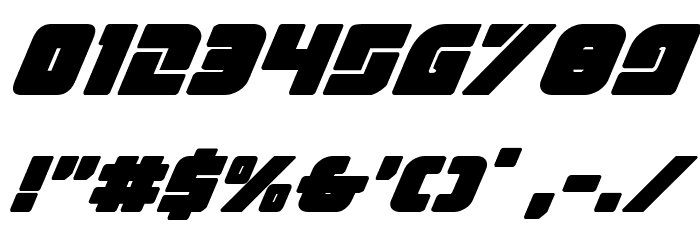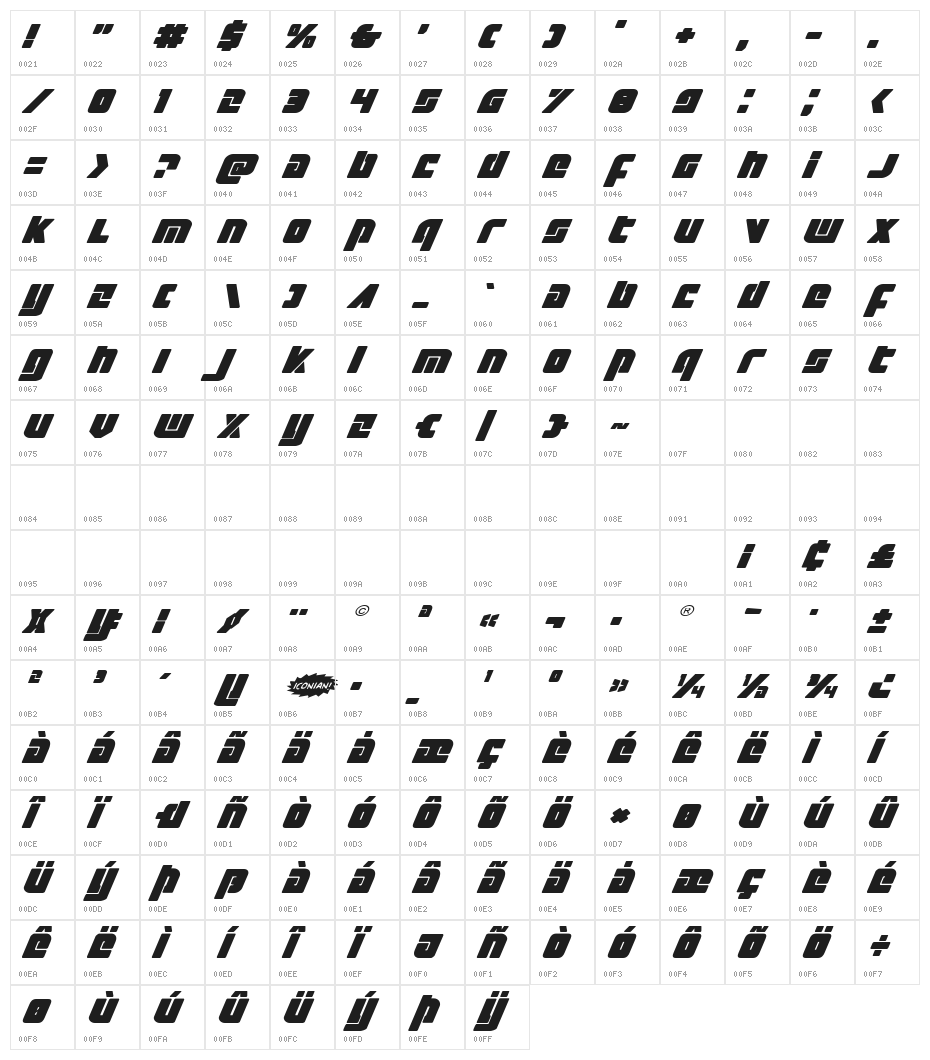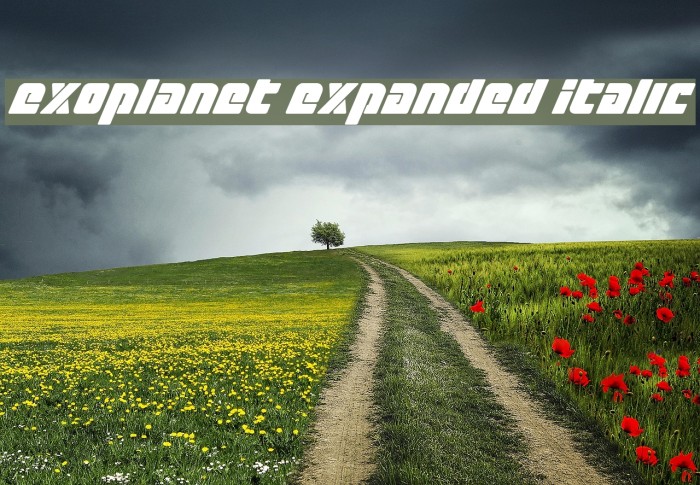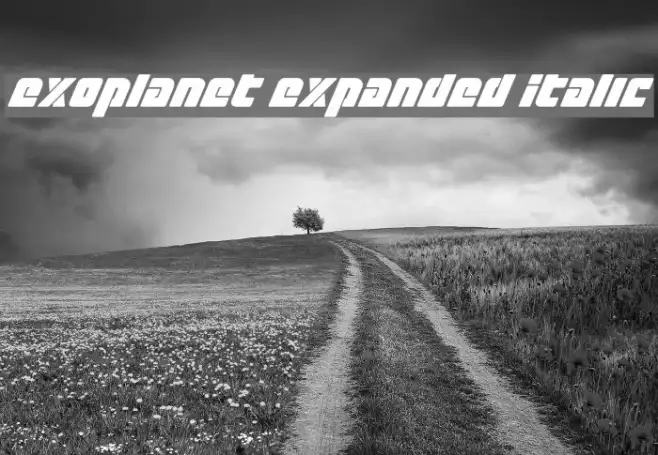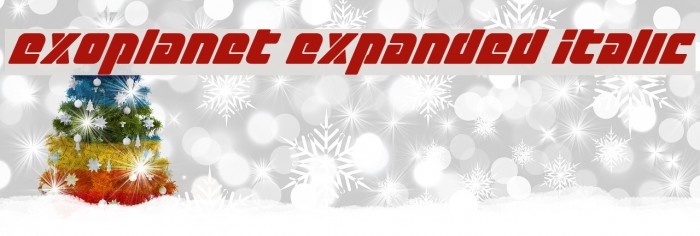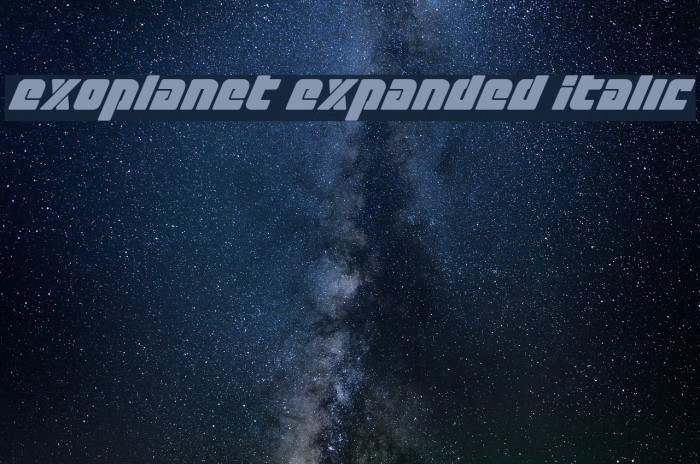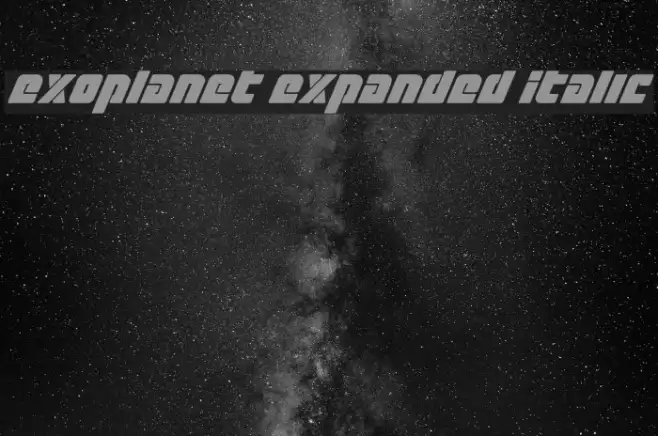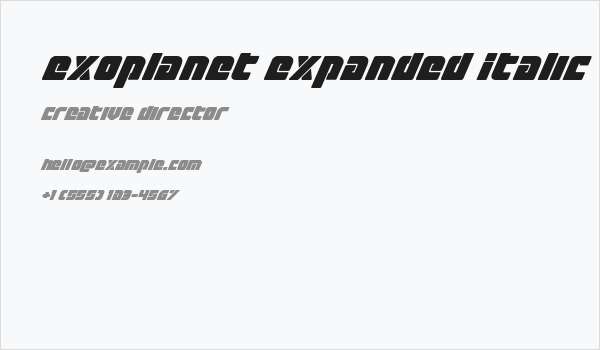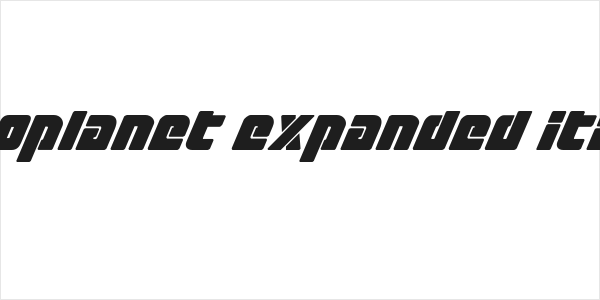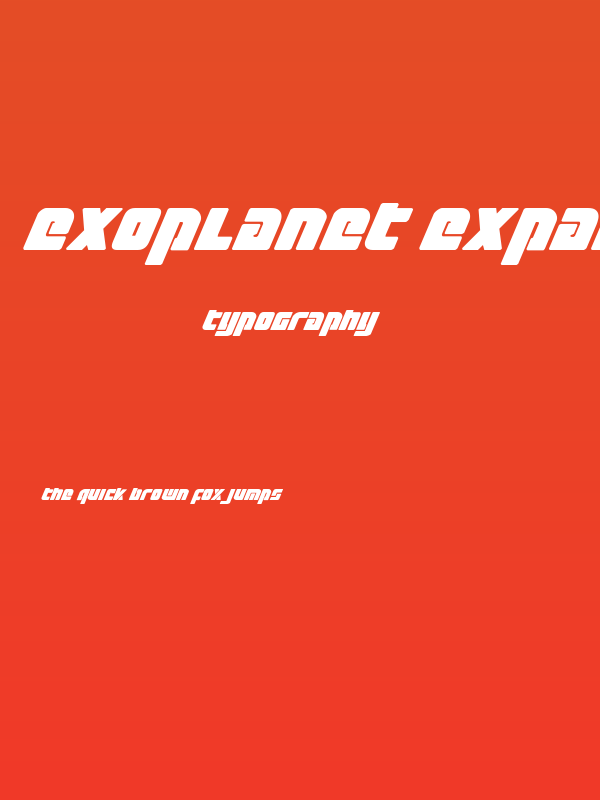
Exoplanet Expanded Italic Font
Exoplanet Expanded Italic Description
This font features a bold and futuristic design with an expanded width and italicized style. The characters are heavily stylized, with sharp angles and a geometric structure that gives it a modern and dynamic appearance. The uppercase and lowercase letters maintain a consistent style, with a strong emphasis on horizontal lines and angular cuts. The numbers and special characters follow the same design principles, ensuring uniformity across the font. Its bold weight and expanded width make it highly visible and impactful, suitable for attention-grabbing headlines or branding.
| Proposed Projects | Ideal for sci-fi themed projects, futuristic branding, video game titles, and technology-related advertisements. |